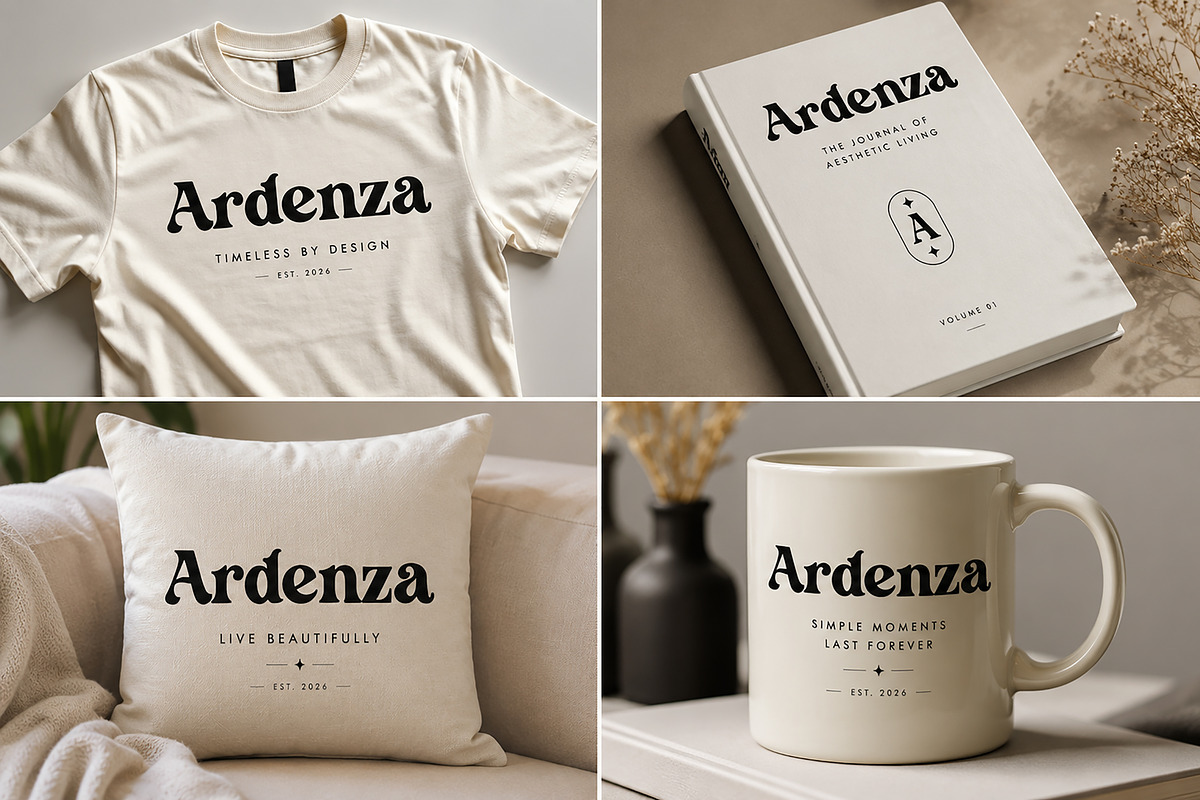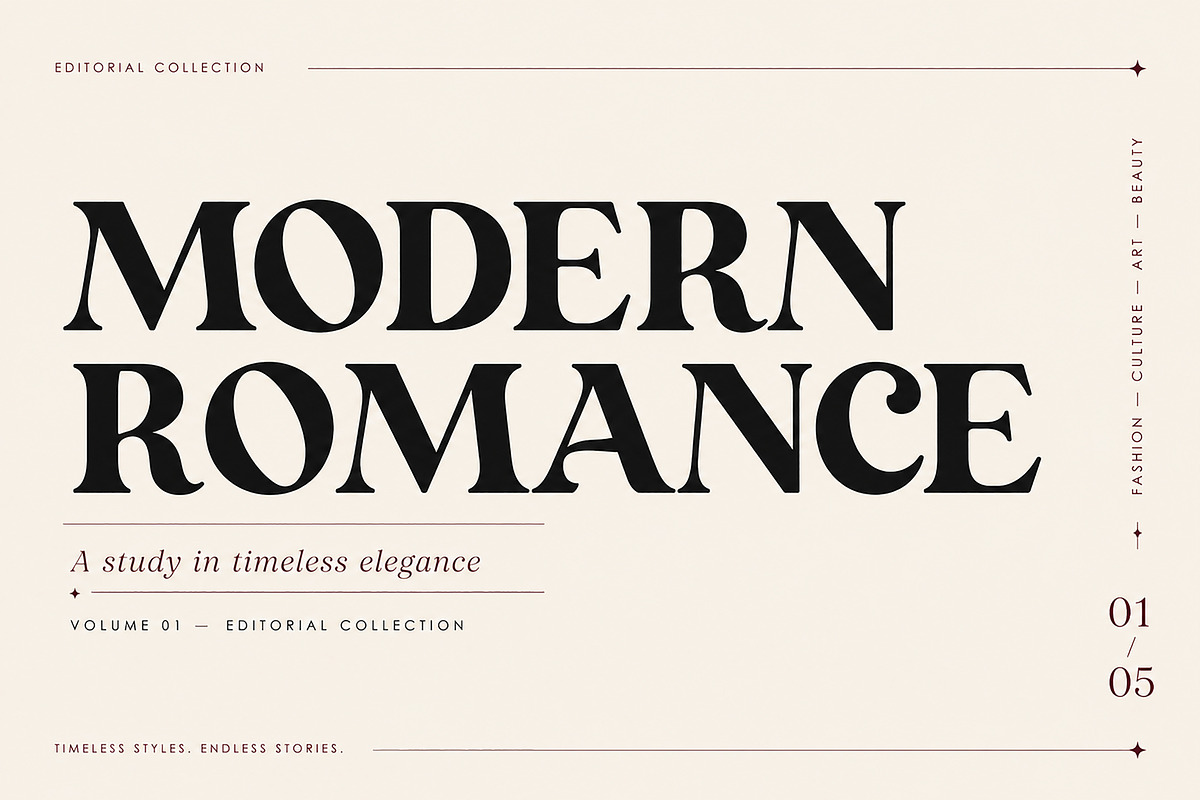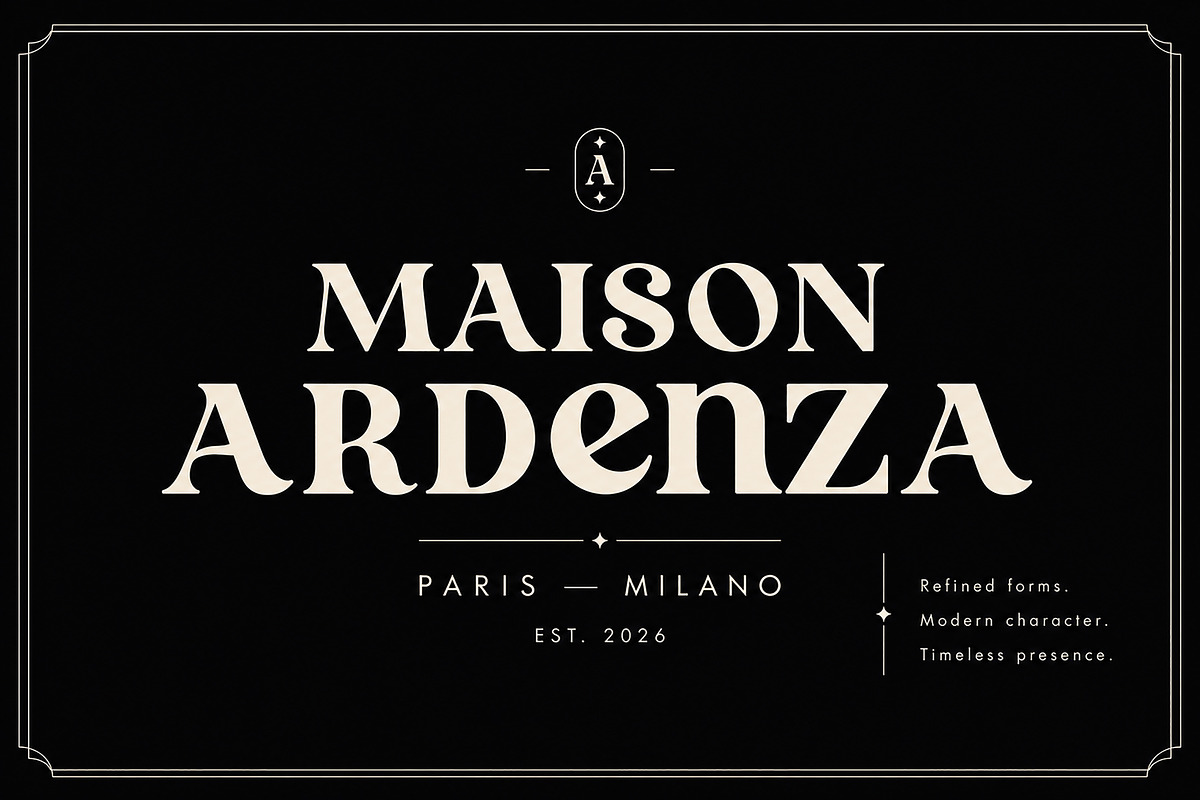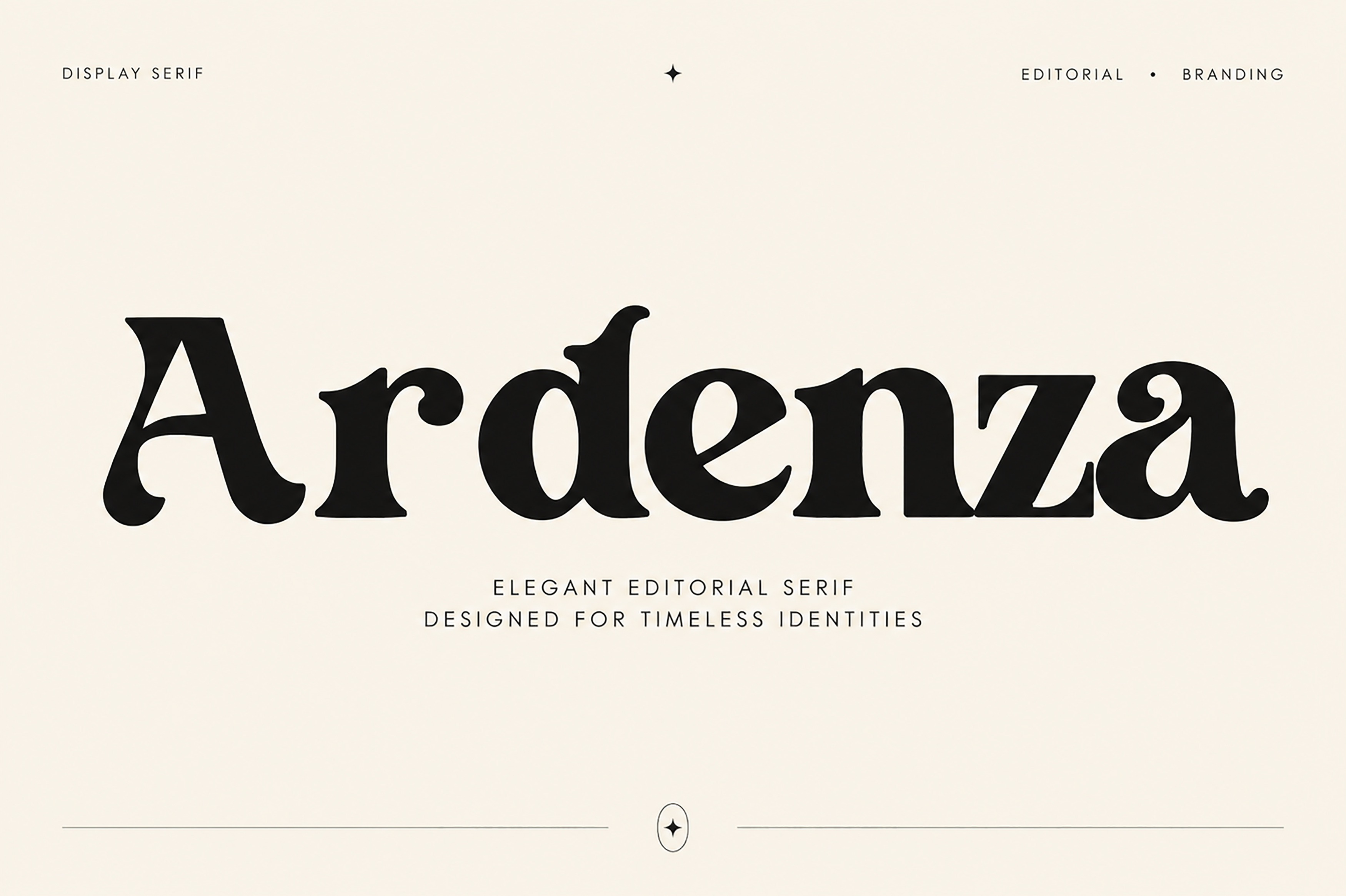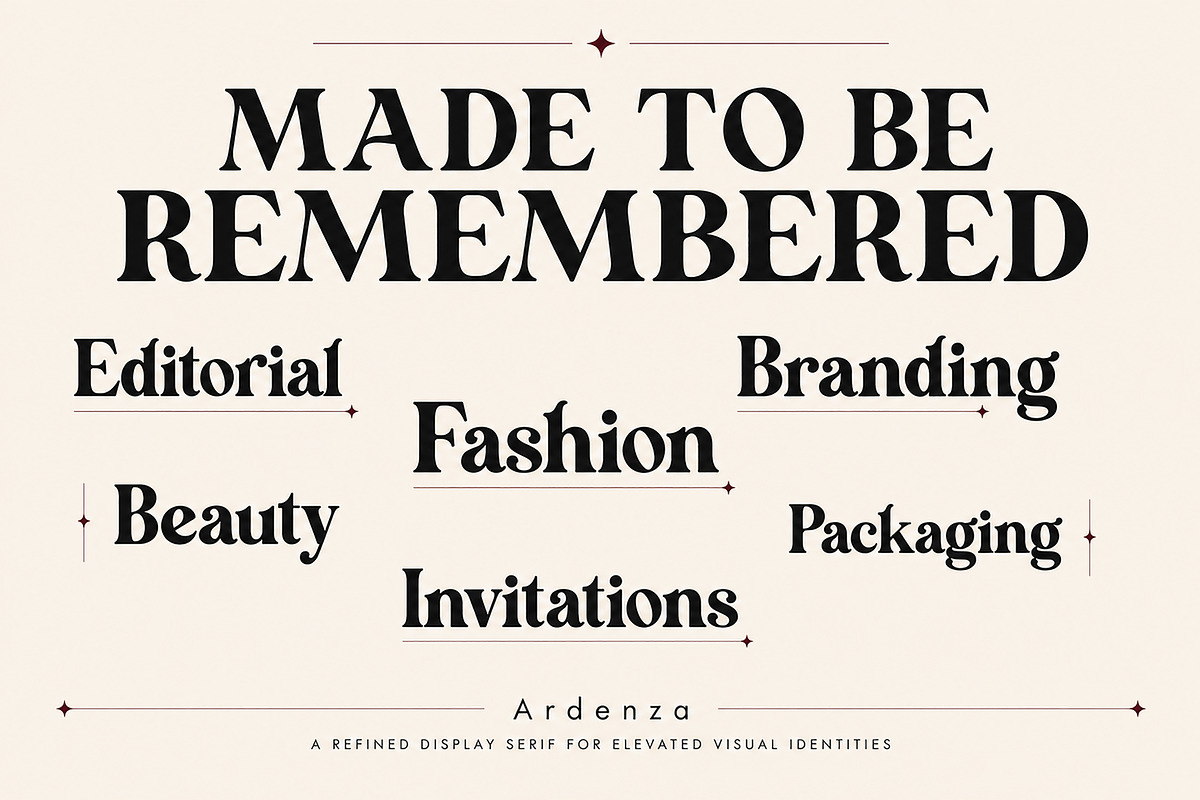
Ardenza — Display Serif Font
Ardenza is a distinctive display serif font crafted to bring elegance, personality, and a refined editorial presence to your designs. Featuring expressive curves, bold proportions, and eye-catching letterforms, Ardenza creates a sophisticated balance between classic elegance and contemporary style.
Designed especially for projects where typography needs to become the focal point, Ardenza is an excellent choice for branding, logos, fashion editorials, magazine titles, beauty packaging, invitations, book covers, posters, social media graphics, and luxury-inspired designs.
Its unique serif details give headlines and brand names a memorable visual identity, making Ardenza especially suitable for designers looking to create sophisticated, stylish, and high-impact typography.
Whether you're developing a fashion identity, designing elegant packaging, creating an editorial layout, or building a distinctive brand, Ardenza adds a confident and polished character to your work.
Branding & Logo Design • Editorial Design • Fashion & Beauty • Magazine Covers • Book Covers • Packaging • Invitations • Posters & Headlines • Boutique Branding • Social Media • T-Shirt Designs • Merchandise • Creative Advertising
Elegant Display Serif Style
Distinctive & Expressive Letterforms
Stylish High-Impact Typography
Perfect for Large Headlines & Titles
Ideal for Branding and Editorial Projects